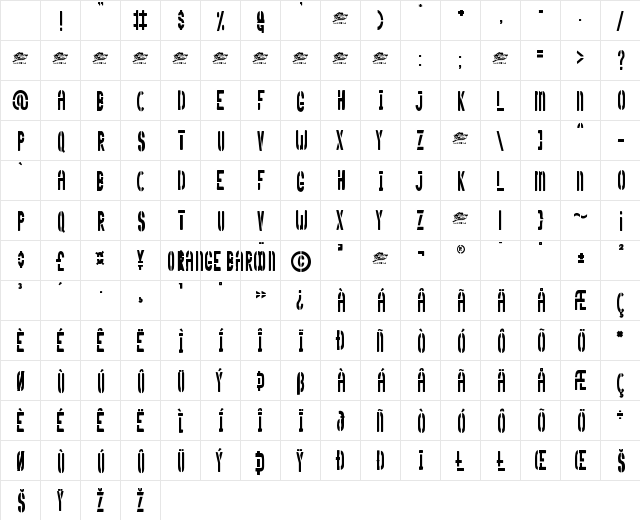
Complete Orange Baroon Display Regular glyph index. Displaying only characters natively supported by Orange Baroon Display Regular font.
Orange Baroon Display is built around its visual character rather than neutral utility - its distinctive forms are designed to make an impression at display sizes.
Font Pairing: Pair with a clean neutral sans-serif for body copy to let Orange Baroon Display's character lead without overwhelming the composition.
Pro Tip: Use Orange Baroon Display exclusively at display sizes - it was designed to be seen, not read at length. Let a neutral companion handle body copy.